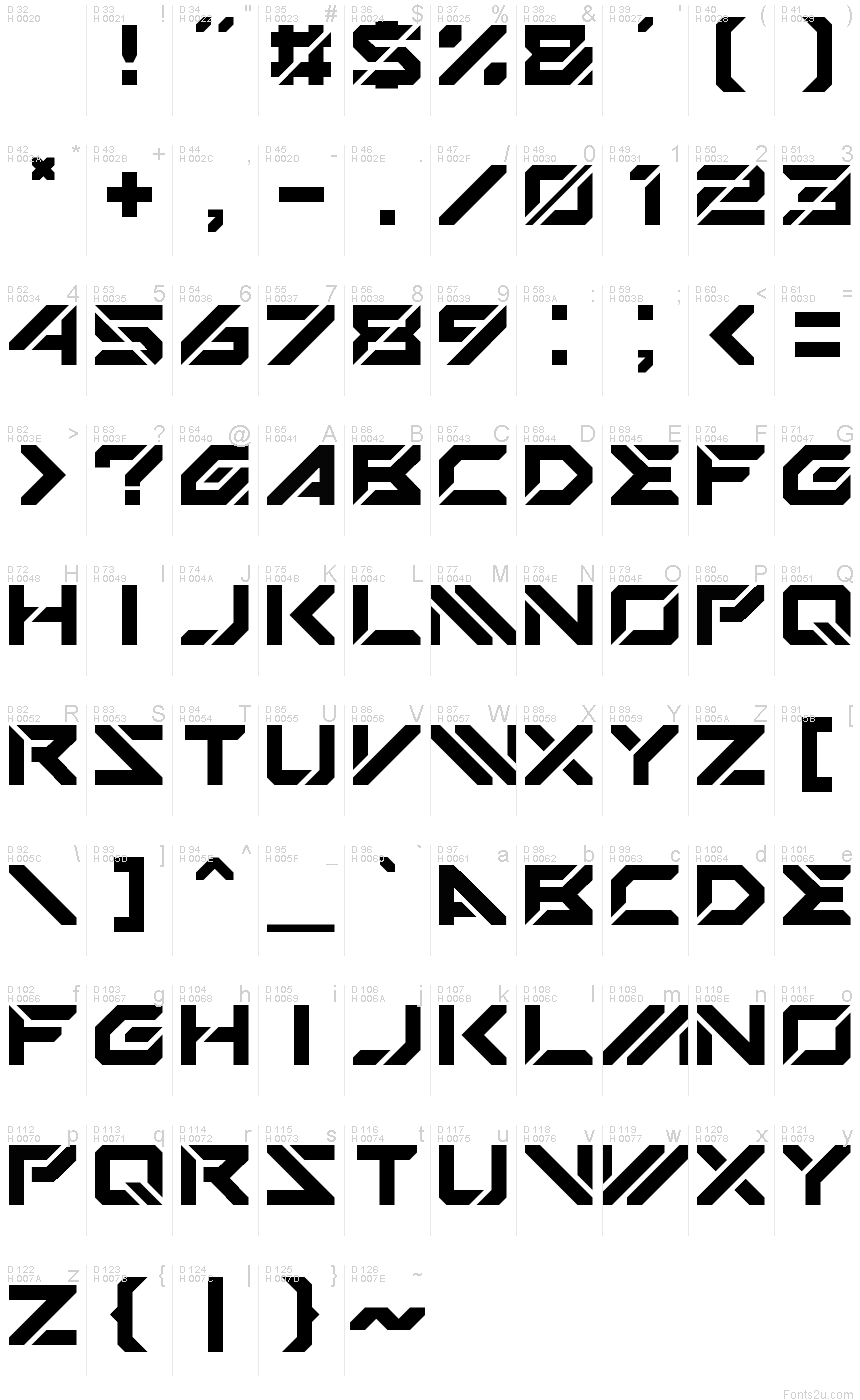
Mechsuit is a versatile sci-fi typefont that also doubles as a stencil font. This font is free for you to use in both commercial AND non-commercial works. No permission is needed.